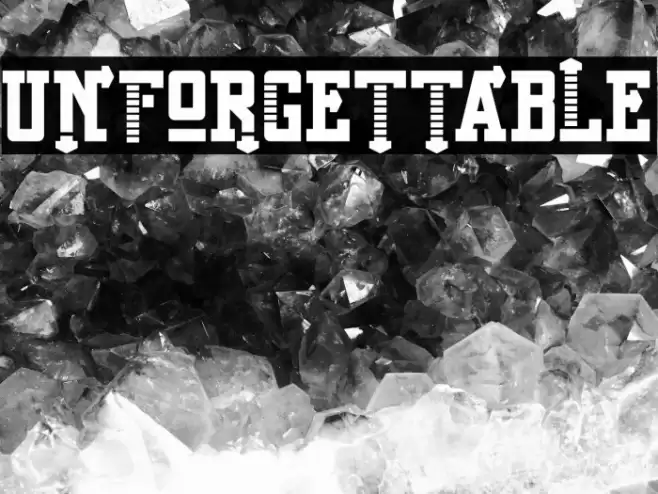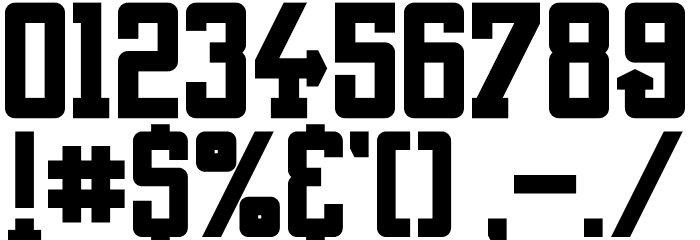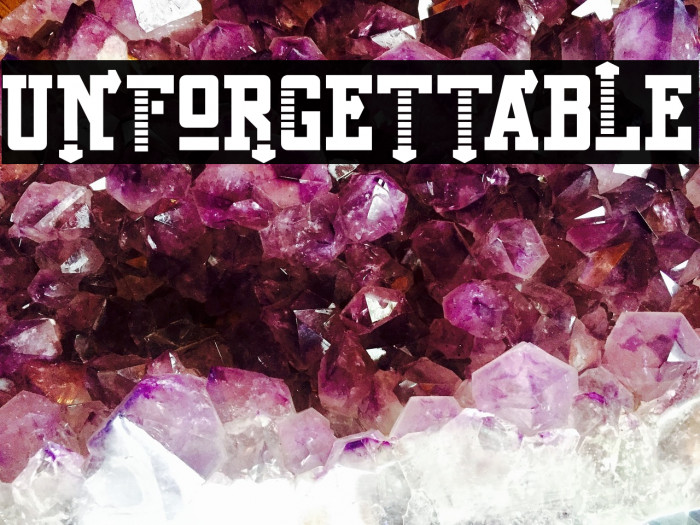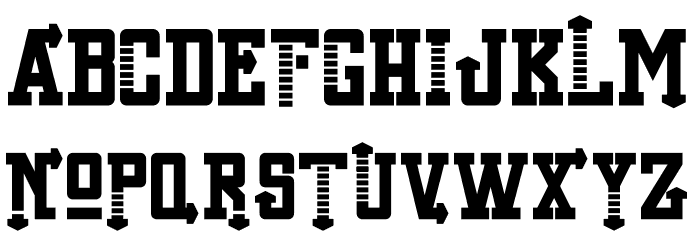
Unforgettable Font
Unforgettable Description
This font features a bold, decorative style with a strong presence. The uppercase letters are characterized by thick, blocky serifs and unique arrow-like extensions that give it a distinctive, eye-catching appearance. The numbers and special characters maintain this boldness, ensuring consistency across all glyphs. The font's design is reminiscent of vintage Western typography, making it ideal for projects that require a rugged, adventurous feel. Its high contrast and wide character spacing enhance readability while maintaining its decorative appeal.
A bold, decorative font with vintage Western-inspired elements and arrow-like serifs from Decorative fonts.
- Proposed Projects: Ideal for posters, signage, branding, and any project requiring a bold, adventurous aesthetic.
- Character Spacing: Wide
- Overall Style: Vintage